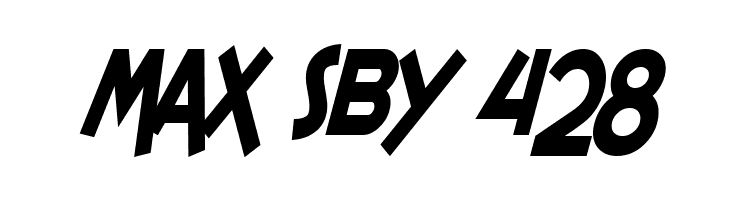
FODECUMBERS THICK ITALIC HOLOW Italic Font
- Font: FODECUMBERS THICK ITALIC HOLOW Italic
A bold, condensed, and italic font with a modern, dynamic style.